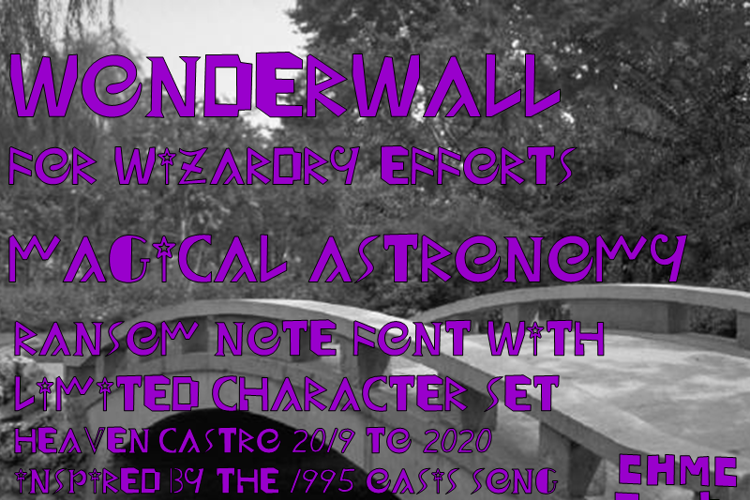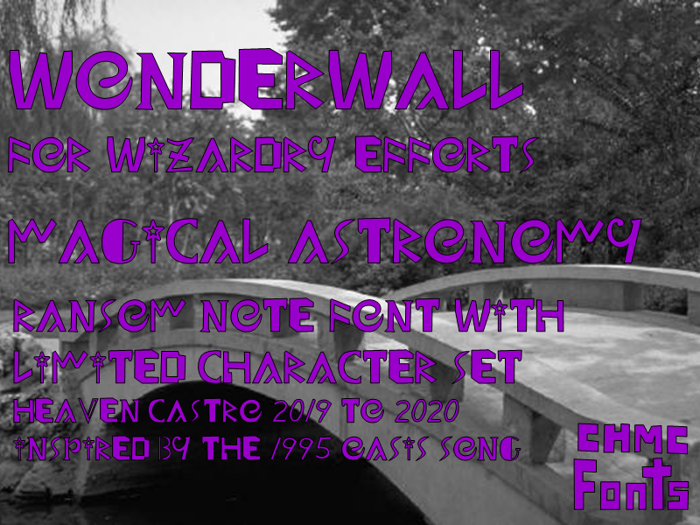
Wonderwall Font
Wonderwall Font is a Ransom Note font and was created on . Since then, it has been downloaded 1,391 times and added to 62 collections. 2 people have liked Wonderwall Font and given it a thumbs up.
Wonderwall is the newest song-inspired ransom note font.